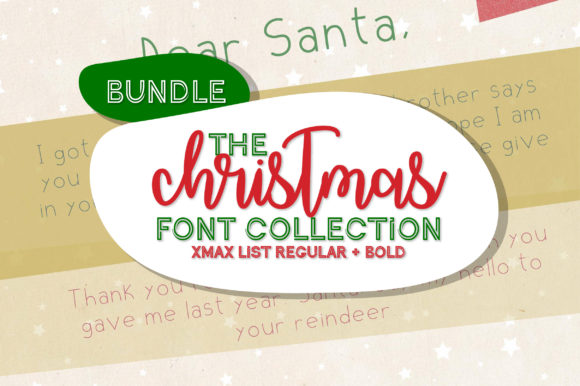
Christmas List Font: A Whimsical Display Font for Your Holiday Projects
Are you looking for a festive and fun font to make your Christmas cards, crafting projects, and holiday-themed designs stand out? Look no further than the Christmas List Font! This whimsical display font is perfect for adding a touch of holiday cheer to your creations. In this article, we’ll take a closer look at the Christmas List Font, its features, and how you can use it to create stunning holiday projects.
What is Christmas List Font?
Christmas List Font is a playful and decorative font designed specifically for the holiday season. It comes in two great styles, which can be combined to create beautiful and eye-catching designs. The font is perfect for creating Christmas cards, gift tags, holiday-themed party invitations, and other crafting projects.
Key Features of Christmas List Font
- Two Styles: Christmas List Font comes in two great styles, which can be combined to create unique and interesting designs.
- Whimsical Design: The font features a playful and whimsical design, perfect for adding a touch of holiday cheer to your projects.
- High-Quality: The font is of high quality, ensuring that your designs look professional and polished.
- Christmas Cards: Use the font to create beautiful and unique Christmas cards for your friends and family.
- Crafting Projects: Add a touch of holiday cheer to your crafting projects, such as scrapbook pages, gift tags, and holiday-themed decorations.
- Holiday Party Invitations: Use the font to create festive and fun holiday party invitations.
Example 1: Christmas Card
In this example, the Christmas List Font is used to create a beautiful and unique Christmas card. The font is used to add a touch of holiday cheer to the design, making it perfect for sending to friends and family.
Example 2: Holiday Party Invitation
In this example, the Christmas List Font is used to create a festive and fun holiday party invitation. The font is used to add a touch of whimsy to the design, making it perfect for a holiday party.
- Experiment with Different Colors: Try using different colors to add a unique touch to your designs.
- Combine with Other Fonts: Combine the Christmas List Font with other fonts to create interesting and unique designs.
- Use in Digital Designs: Use the font in digital designs, such as social media graphics and holiday-themed email templates.
The Christmas List Font is a fun and whimsical display font that’s perfect for adding a touch of holiday cheer to your designs. With its two great styles and easy-to-use design, it’s perfect for crafters and designers of all skill levels. Whether you’re creating Christmas cards, crafting projects, or holiday-themed party invitations, the Christmas List Font is sure to make your designs stand out.